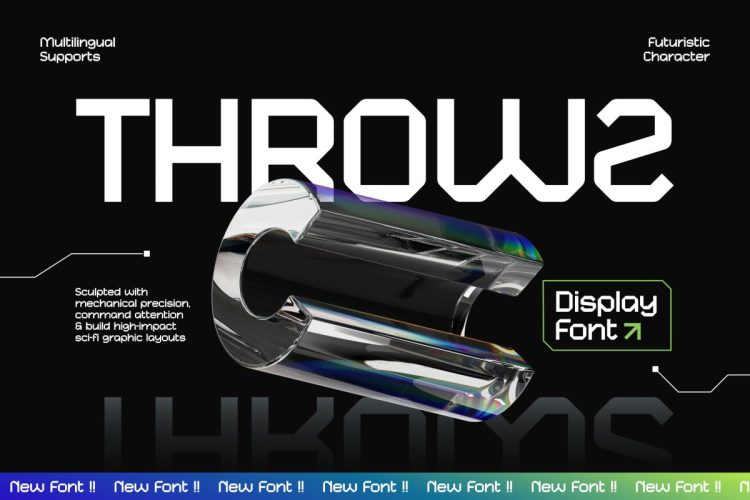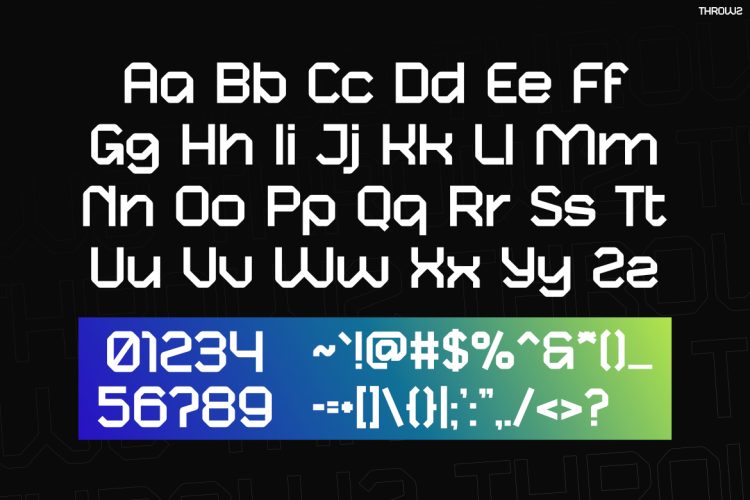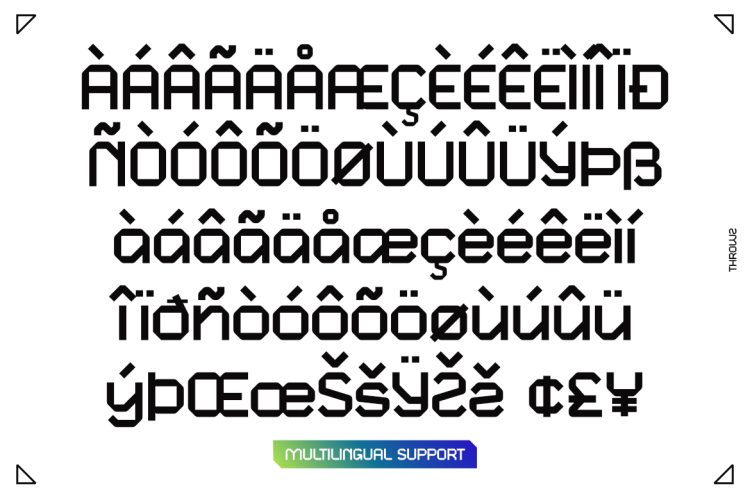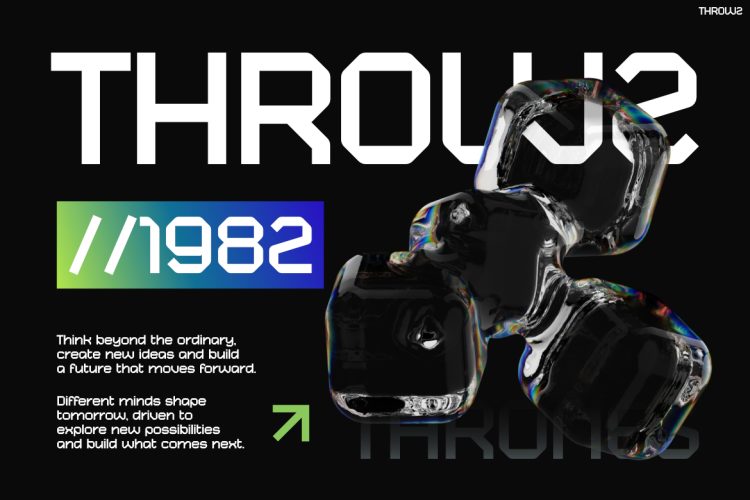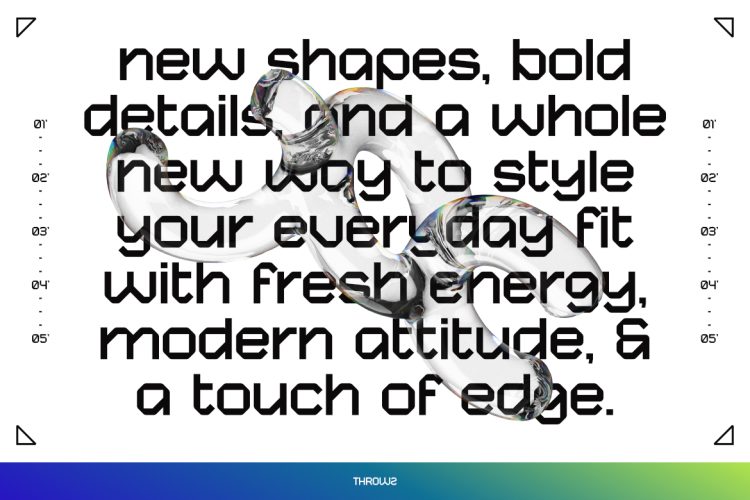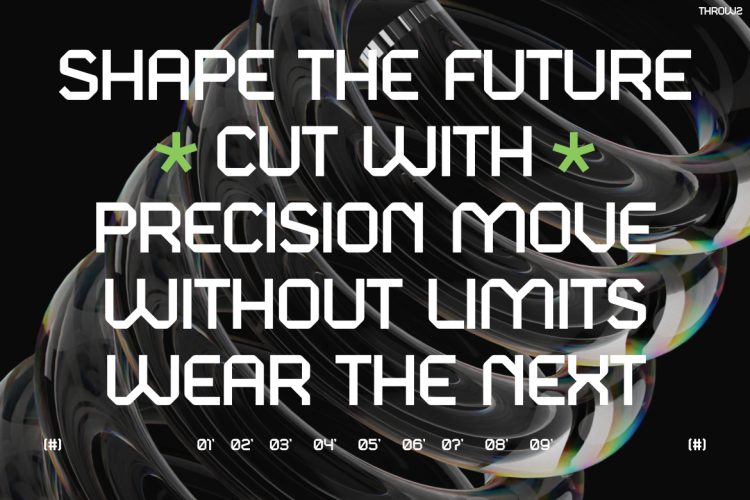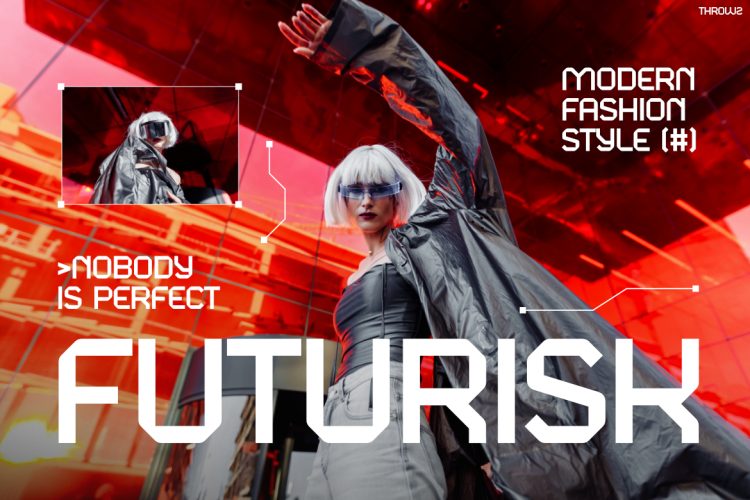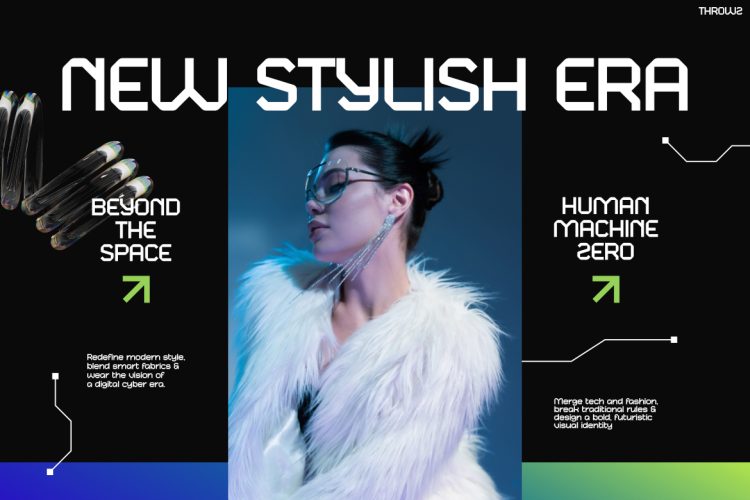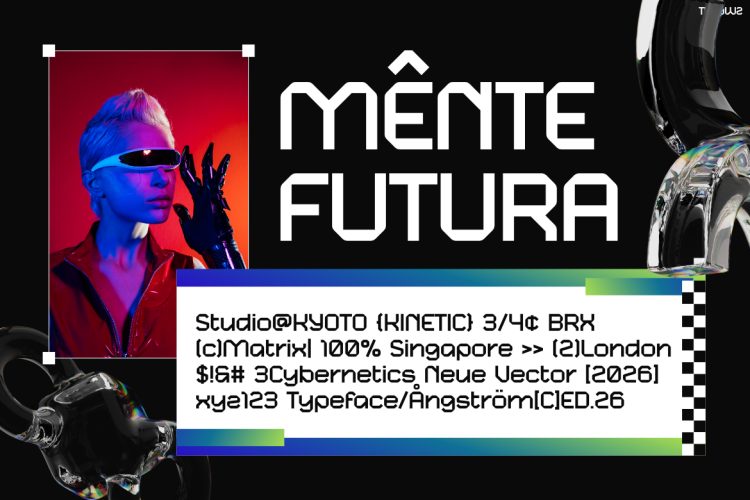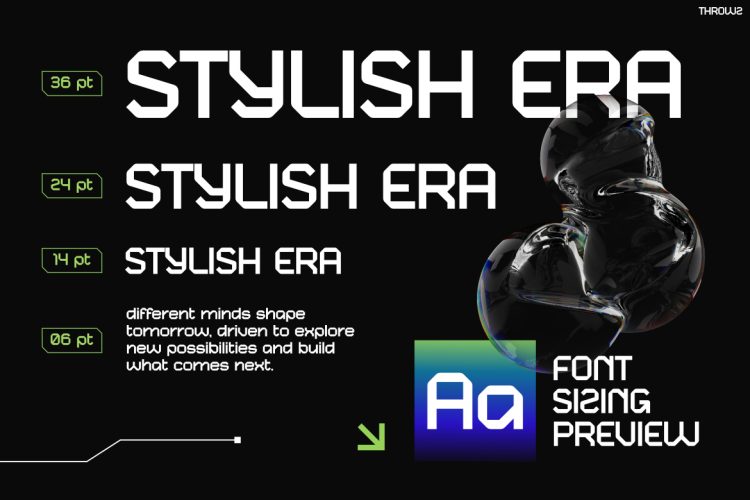
Modern Font Throwz โ Sharp Digital Style for Bold Future-Driven Designs
Modern Font Throwz brings a futuristic edge with geometric letterforms, squared curves, and a sleek digital structure. Its distinctive shapes create a high-tech visual without losing clarity. Moreover, the compact forms give headlines a strong presence on screen. As a result, every design feels sharper, faster, and ready for the next era.
Additionally, Modern Font Throwz is built for creators who want a bold digital attitude. Whether you’re working on tech branding, gaming visuals, fashion campaigns, or futuristic posters, it fits right in. Furthermore, its unique shapes work well with dark layouts, neon accents, 3D objects, and modern imagery. Meanwhile, Multilingual Support for 67 languages makes it ready for international creative projects. Therefore, you can build consistent visuals across different markets and platforms.
Tech branding, gaming projects, futuristic posters, fashion campaigns, digital advertising, esports graphics, UI concepts, product launches, album covers, event visuals, social media content, YouTube thumbnails, creative logos, and modern packaging.
Shape the Future